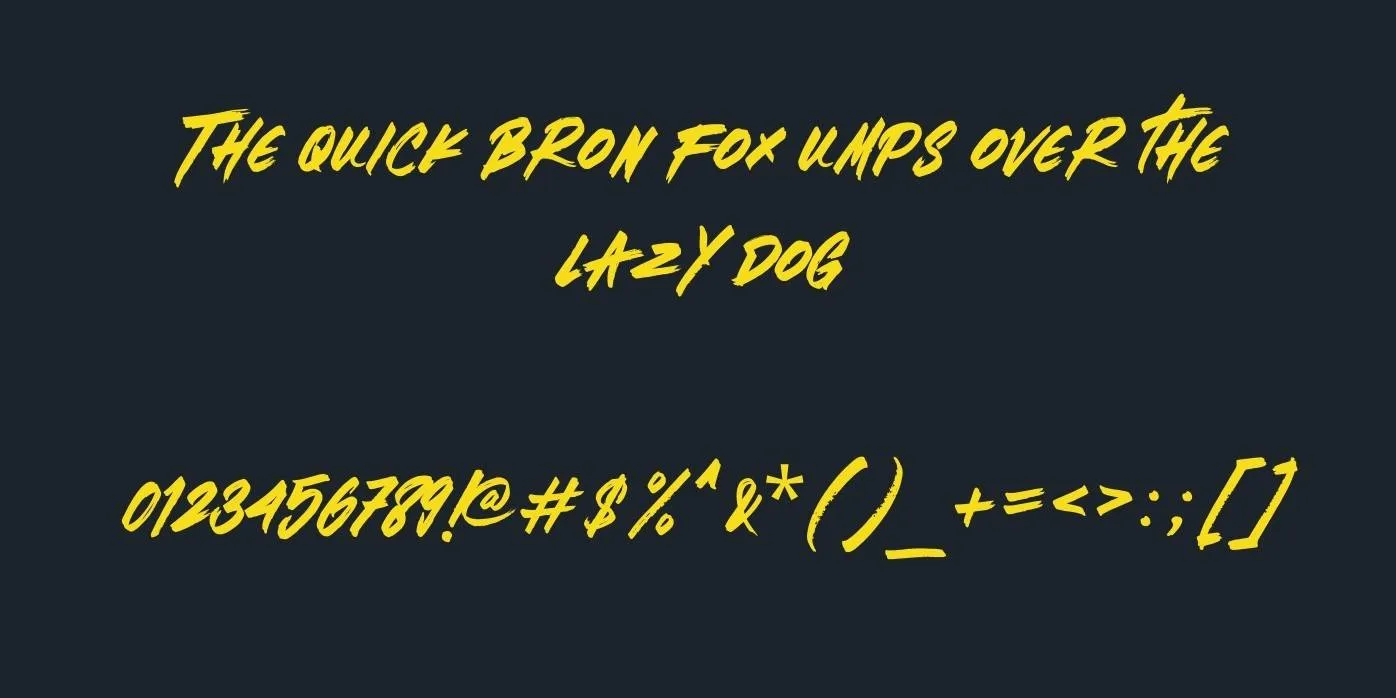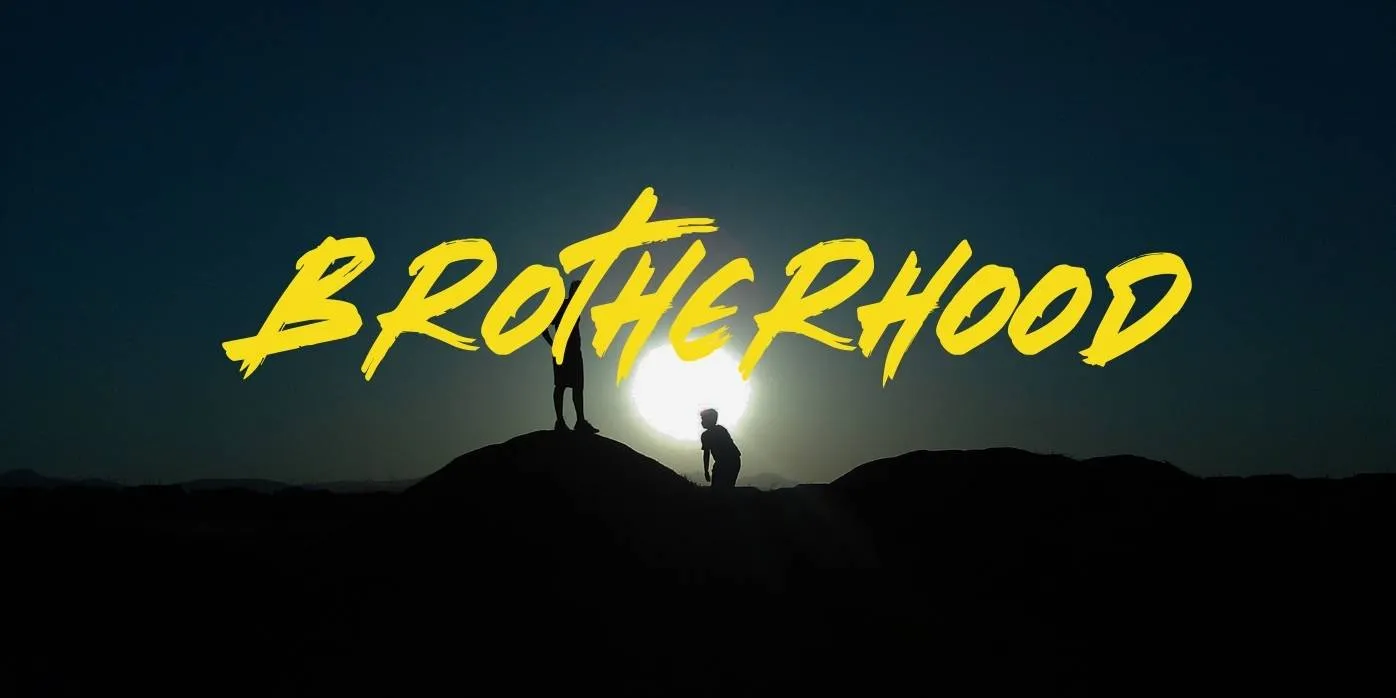
Brotherhood Font
Brotherhood Font is a brush typeface that has bold and highly readable classic and stylish characters. This elegant texture was designed by Rometheme Studio. It contains 139 glyphs and 140 characters, including uppercase, lowercase, special, and numbers. This font comes in only one style.